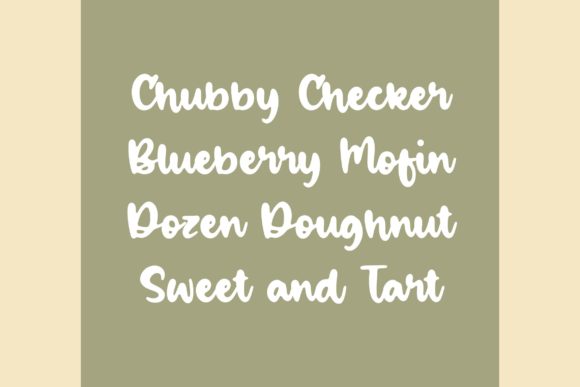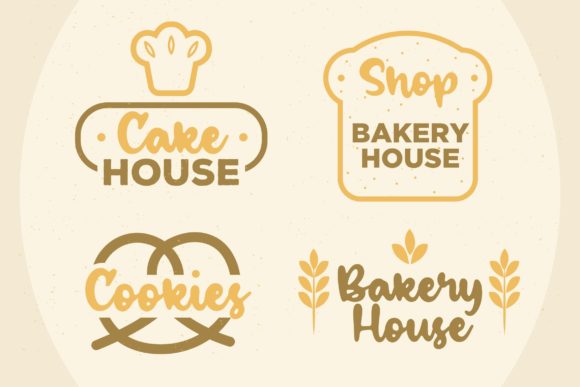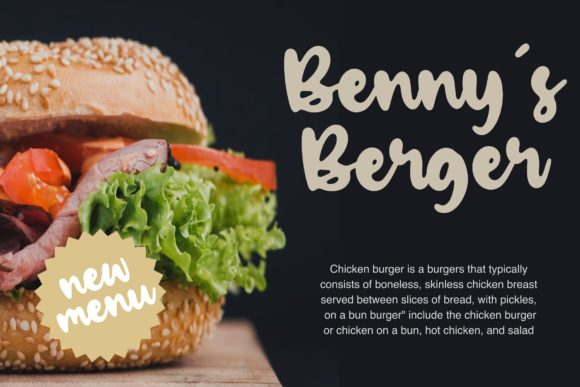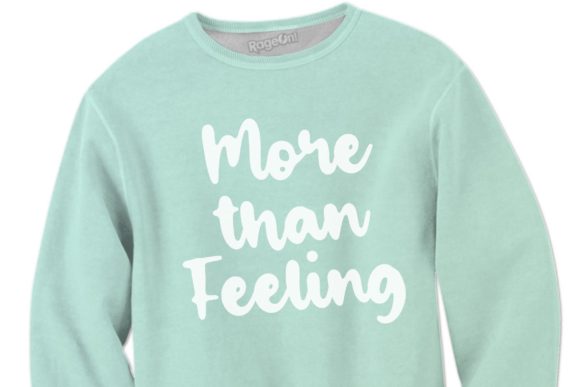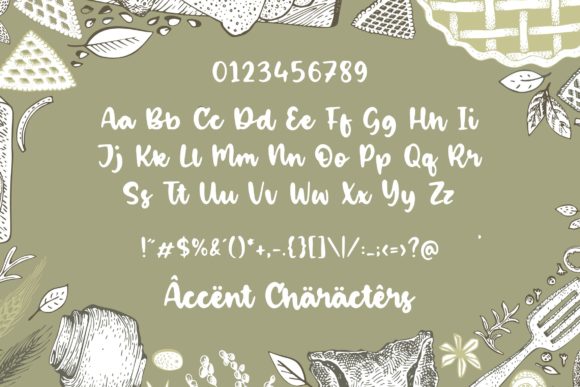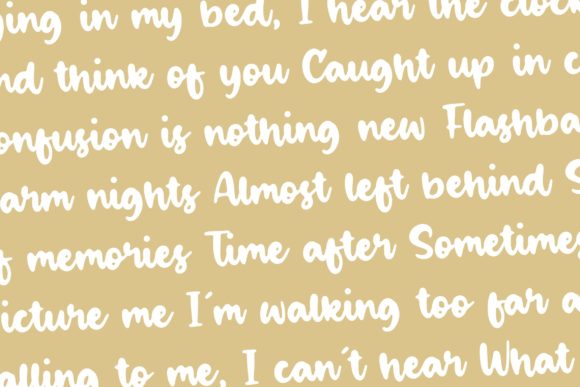
Discover the Magic of Baked Almond Font
Have you ever sat at your desk, staring blankly at your computer screen, waiting for inspiration to strike? That’s exactly where I was when I stumbled upon the Baked Almond Font. Its bold and flowing handwritten style instantly captured my attention, and I knew I had to learn more.
| 👤 Author | Balpirick |
Baked Almond Font is a versatile and stunning font that’s perfect for designers looking to add a touch of elegance to their projects. Whether you’re creating a wedding invitation, a restaurant menu, or a social media graphic, this font is sure to impress. Its unique style and versatility make it a valuable addition to any designer’s toolkit.
With Baked Almond Font, the possibilities are endless, and I’m excited to share its secrets with you. Get ready to fall in love with this incredible font and discover how it can elevate your designs to the next level.
- Unique Characteristics: Elegant, cursive script with a warm, baked texture; ideal for invitations, wedding stationery, and other special occasions
Baked Almond Font Review
First off, I’d say the font is quite charming, with a unique blend of modern and vintage elements ✨. The designer has successfully incorporated the soft, golden hues of baked almonds into the typography, which gives it a warm and inviting feel. The font is also highly customizable, allowing users to adjust the color palette to suit their design needs.
- Baked Almond Font is highly customizable, allowing users to adjust the color palette to suit their design needs.
- The font has a unique blend of modern and vintage elements, making it a great choice for designs that require a touch of elegance and sophistication.
- The font is highly legible, even at smaller font sizes, making it suitable for a wide range of applications.
However, I do have a few concerns ⚠️. Firstly, the font may not be suitable for designs that require a bold, edgy feel, as it can come across as a bit too soft and delicate. Additionally, the font may not be as versatile as some other fonts on the market, as it’s primarily designed for use in a specific color palette.
Overall, I’d say the Baked Almond Font is a solid choice for designers who want to add a touch of warmth and elegance to their designs. While it may have its limitations, it’s a beautiful font that’s sure to impress. Just be sure to use it in the right context to get the most out of it!
Tips for Getting the Most Out of Baked Almond Font
For best results, use the Baked Almond font in conjunction with a warm color palette and vintage-inspired design elements. This will create a cohesive and visually appealing look.
The Baked Almond font is ideal for use in:
- Vintage-inspired advertising and marketing materials
- Customized gift tags and labels